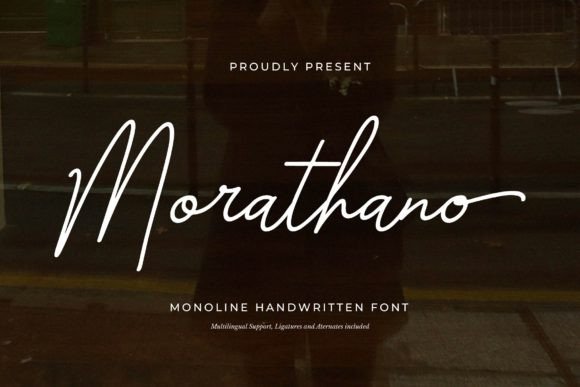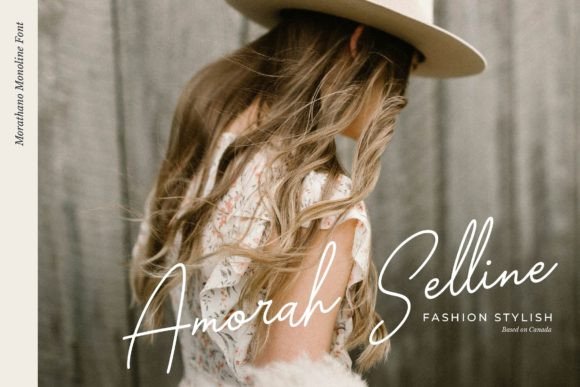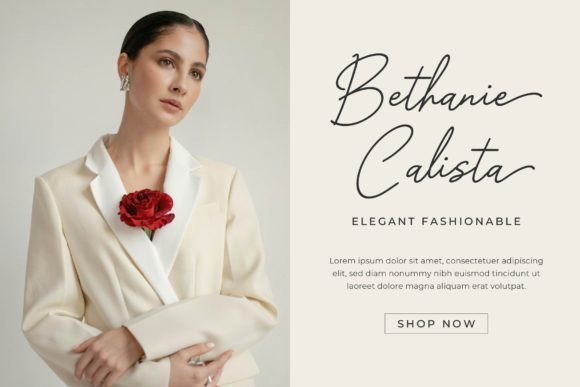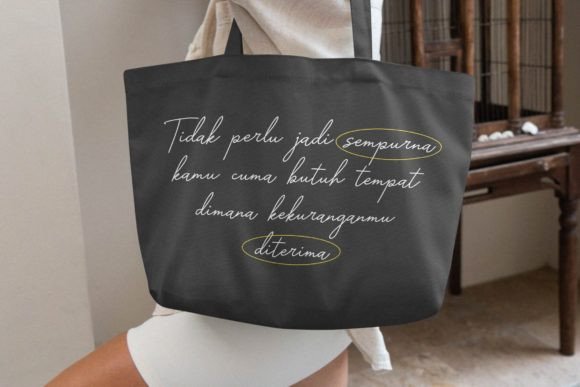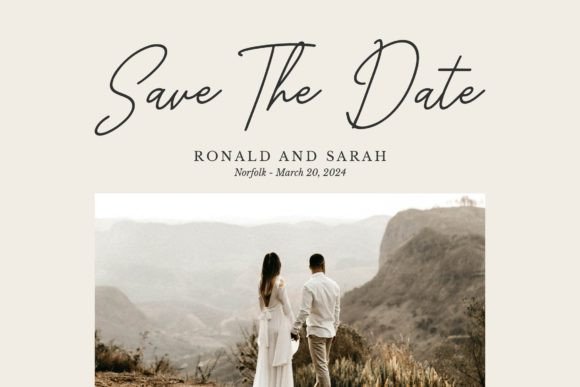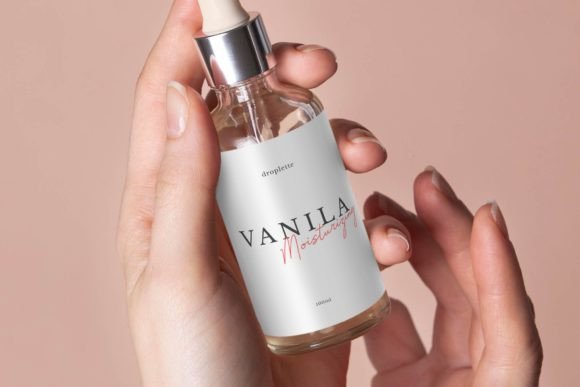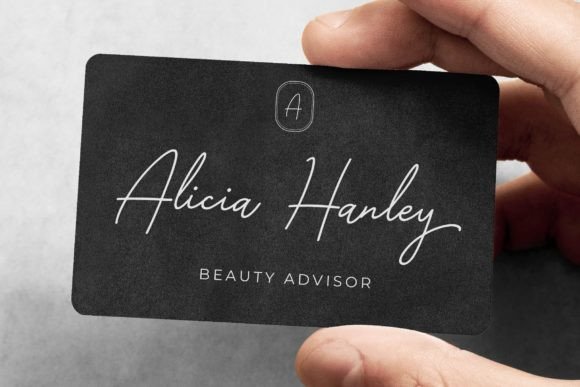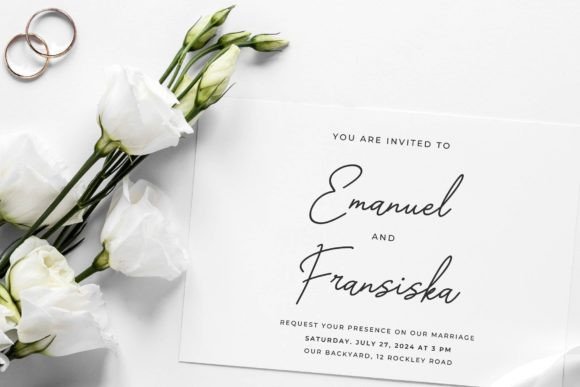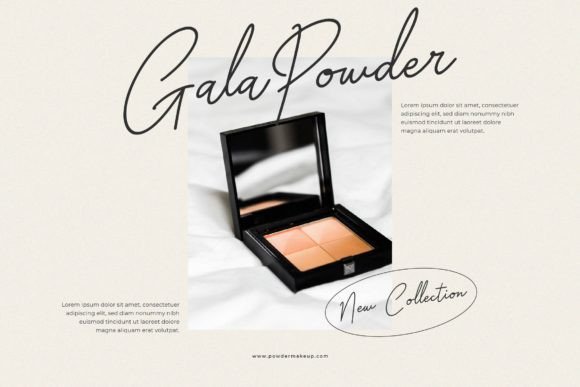
Morathano Font
Morathano is a stylish and elegant handwritten font with a smooth, single-line design. It looks like it was written with a pen, giving it a personal and creative feel, perfect for invitations, logos, and other special projects.